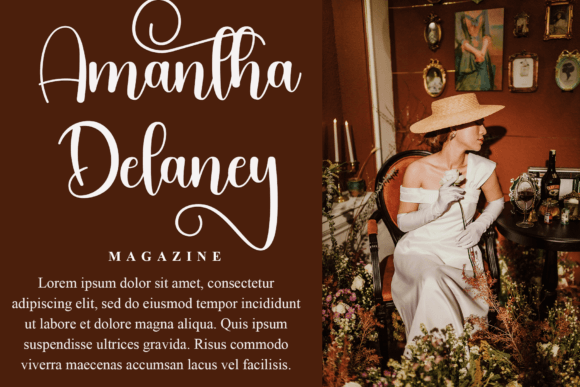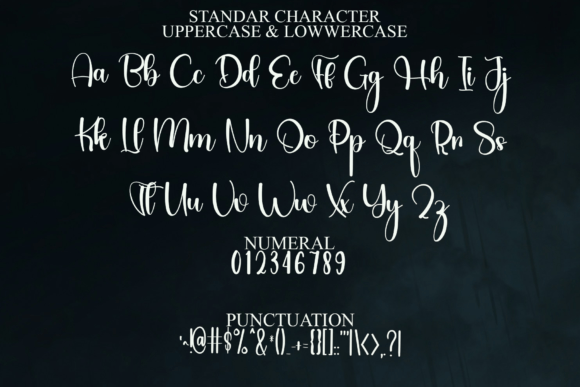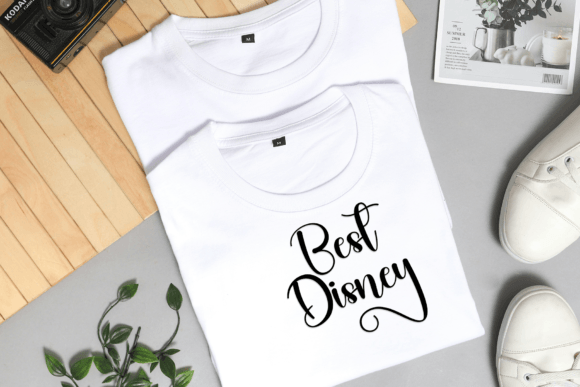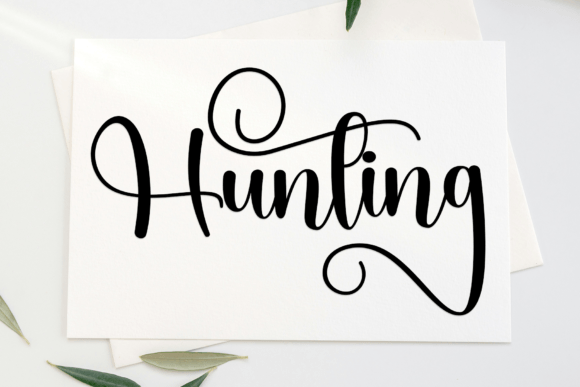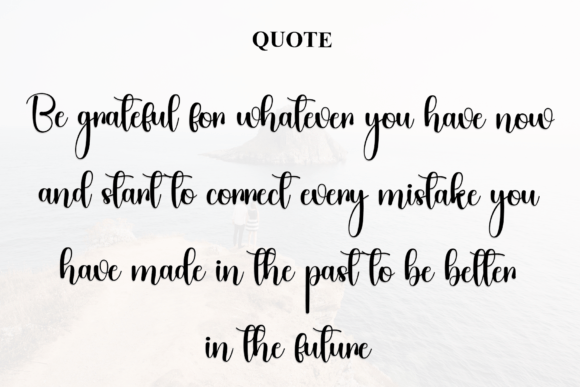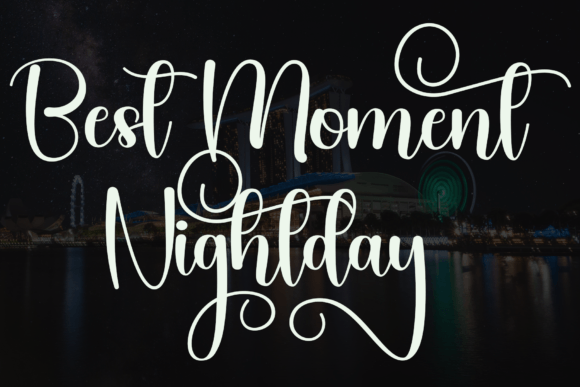
Unlock the Magic of Beauty Night Font
There’s something special about staying up late, surrounded by creative chaos, and watching your design come to life. For many designers, this is the moment when hours of work pay off, and the excitement of bringing a new project to life becomes palpable. As you pour your heart and soul into your craft, the right font can make all the difference in elevating your design from good to breathtaking.
Enter Beauty Night Font, a stylish and elegant typeface that exudes warmth and sophistication. This beautiful font is perfect for adding a personal touch to invitations, branding, or social media, and its fluid strokes and natural flow create a captivating look that’s sure to leave a lasting impression. For designers, the Beauty Night Font is a valuable tool that can help bring their unique vision to life and set their designs apart from the rest.
Beauty Night Font Key Features
- Font Family: Beauty Night Font offers a range of unique and elegant characters, perfect for beauty and lifestyle branding.
- Unique Characteristics: Features intricate details, ornate flourishes, and soft curves, giving it a sophisticated and feminine touch.
- Style Variations: Available in multiple styles, including Regular, Bold, Italic, and Bold Italic, allowing for creative expression and emphasis.
Review of “Beauty Night Font”
Overall, I’m impressed with the “Beauty Night Font” – it’s a great choice for projects that need a touch of elegance and sophistication. Here are some things that stand out:
- ✨ The font is highly customizable, allowing for adjustments in size, color, and even individual character styling. This level of control is a major plus for designers who need to fine-tune their typography.
- ✨ The font’s curves and lines are expertly crafted, giving it a smooth, refined look that’s perfect for beauty and lifestyle branding.
- ✨ The font is well-suited for a wide range of applications, from magazine headlines to social media graphics.
However, there are a few limitations that might be worth noting:
- ⚠️ The font may not be ideal for projects that require a more modern or edgy look. Its classic, sophisticated design might feel too old-fashioned for some audiences.
- ⚠️ The font’s character set is not as extensive as some other fonts on the market, which might limit its usability in certain contexts.
Overall, I think “Beauty Night Font” is a solid choice for designers who need a elegant, customizable font. While it may not be perfect for every project, its strengths make it a valuable addition to any designer’s toolkit.
Tips for Getting the Most Out of the Beauty Night Font
Use the Beauty Night Font for beauty and lifestyle-related projects, such as makeup tutorials, skincare routines, and fashion designs.
Experiment with different font sizes, colors, and combinations to create visually appealing designs.
Use the Beauty Night Font in conjunction with high-quality images and graphics to enhance your designs.